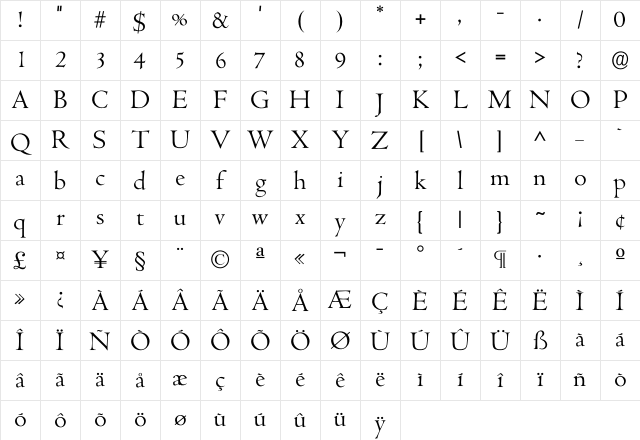
Centaur Light Free Font
Centaur Light
Design Context for Centaur
Centaur is a composed and adaptable typeface that performs quietly and consistently across a wide range of design contexts. Its slender proportions lend an understated elegance to any composition.